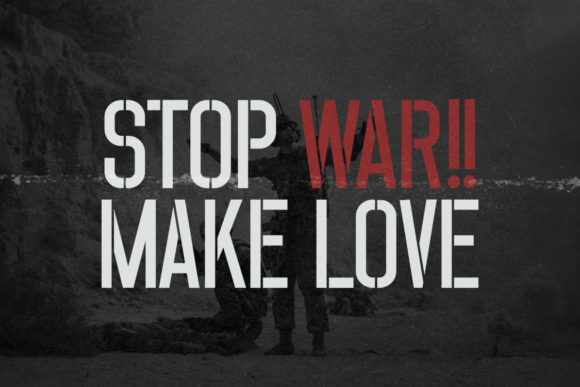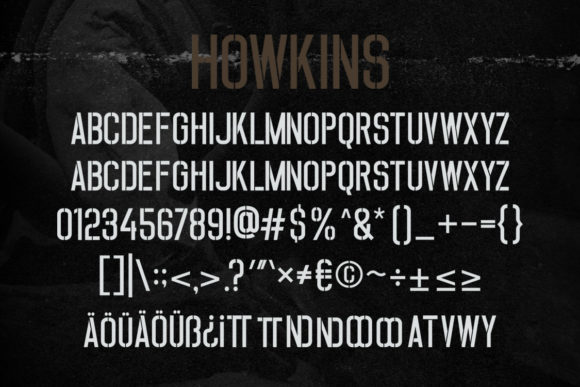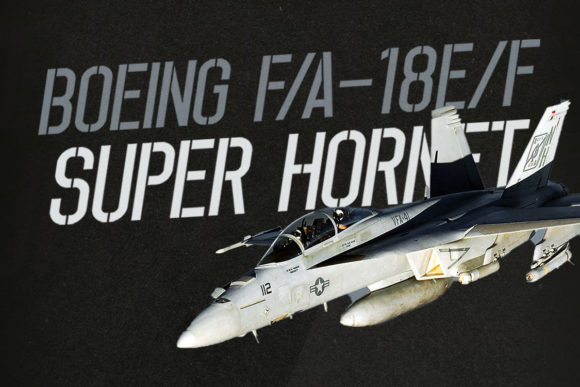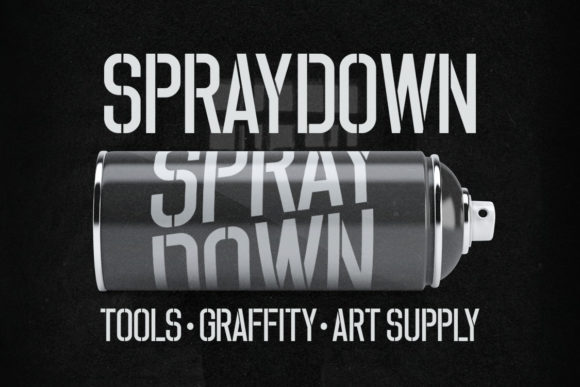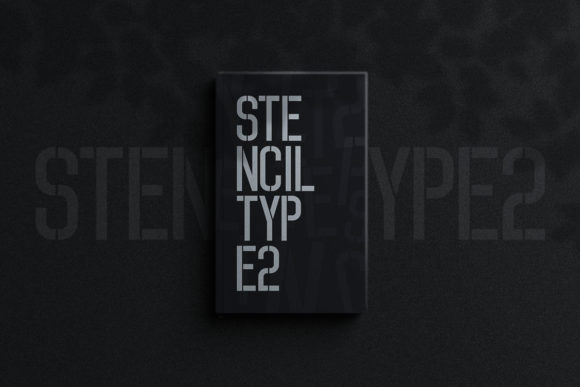
Introduction to Howkins Font
Howkins is a bold and chunky lettered display.
Add it to your most creative ideas and notice how it makes them come alive .
Key Features of Howkins Font
Why Choose Howkins Font?